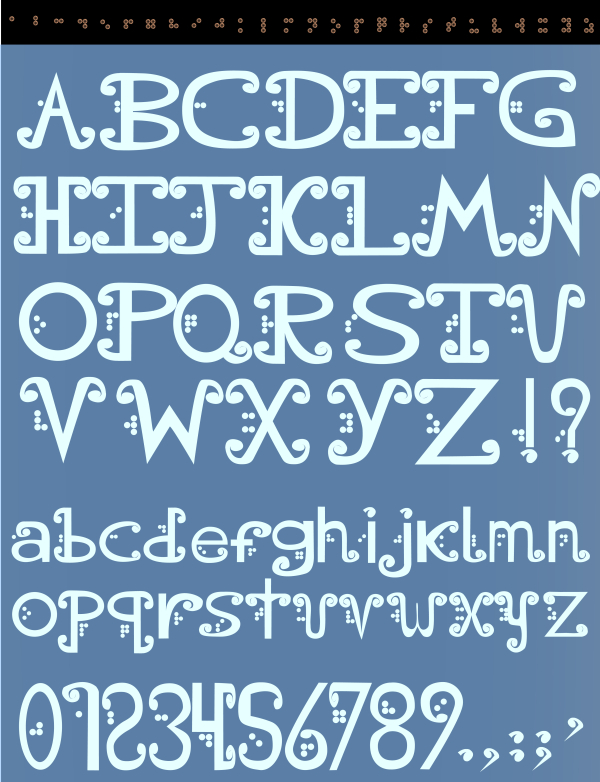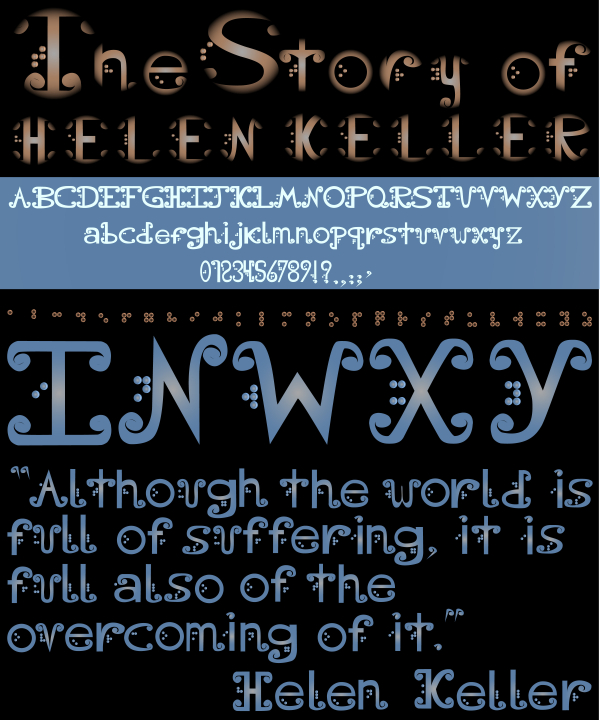
Helen Keller
This font design was inspired on the story of Helen Keller. The font itself also contains the Braille system. This font is used for display, headlines, or can be decorative. Add gradients and color background for interesting effects.